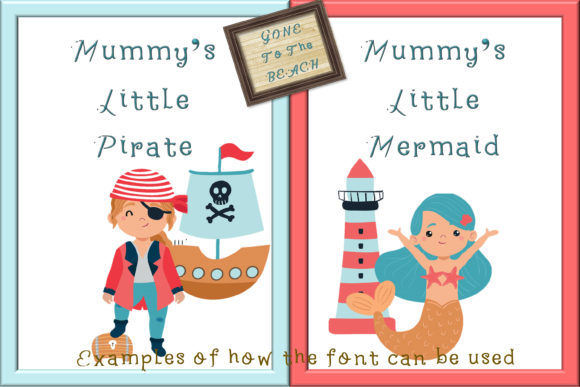
Introduction to Rustic Sweetie Pie Font
Do you remember the joy of creating handmade cards and pictures for your little ones? The hours spent crafting and personalizing each piece of art, only to see the smile on their face when they receive it? That’s exactly the kind of magic you can bring to your creative projects with the Rustic Sweetie Pie Font.
This adorable and quirky font is a treasure trove for designers, educators, and crafty enthusiasts. Its unique charm makes it perfect for creating children’s pictures, signs, teaching resources, and even nautical designs. With its free download option and high-quality design, you can easily integrate it into your next project. Plus, the transparent background feature gives you the flexibility to place it anywhere you like, making it a valuable resource for any creative endeavor.
Key Features of Rustic Sweetie Pie Font
- Unique, Hand-Drawn Design: Rustic Sweetie Pie Font offers a charming, hand-drawn aesthetic perfect for creative projects that require a personal touch.
- High-Quality Graphics: This font features high-resolution graphics, ensuring crisp and clear text even at larger sizes.
- Transparent Background: This font includes a transparent background option, allowing for seamless integration with various design elements and backgrounds.
- Perfect for Creative Projects: Rustic Sweetie Pie Font is ideal for wedding invitations, baby shower invitations, and other creative projects that require a whimsical and charming touch.
Honest Review: Rustic Sweetie Pie Font
I recently had the chance to work with the Rustic Sweetie Pie Font, and I must say it’s been a delightful experience. The font is perfect for creating a warm and inviting atmosphere in any design project.
What works well: ✨ The font is incredibly versatile and can be used in a variety of creative projects, from wedding invitations to food blogs. It’s also available for free download, which is a huge plus. The high-quality design and transparent background make it easy to use and customize.
Overall, I’m really impressed with the Rustic Sweetie Pie Font. It’s a great design resource for anyone looking to add a touch of warmth and whimsy to their creative project.
Pros:
- Perfect for creating a warm and inviting atmosphere
- High-quality design and transparent background
Cons:
To get the most out of the Rustic Sweetie Pie Font, use it with a transparent background to create a sense of depth and dimension. Experiment with different font sizes and colors to add visual interest to your design. You can also use the font in combination with other design elements, such as graphics and images, to create a unique and eye-catching design.
The Rustic Sweetie Pie Font is perfect for a variety of creative projects, including wedding invitations, baby shower invitations, and other special occasion designs. It’s also great for branding and marketing materials, such as business cards and brochures. With its high-quality design and versatility, the Rustic Sweetie Pie Font is a valuable addition to any design resource.